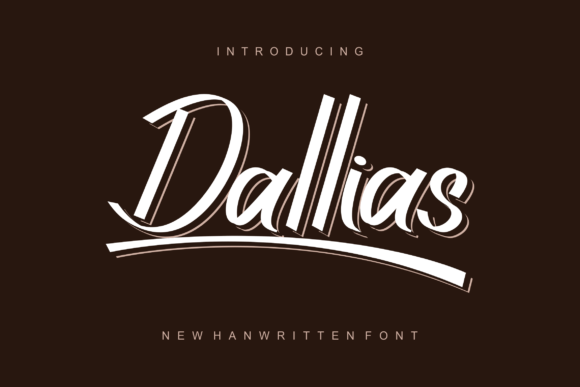
Step into the world of Dallias Font, a script font family meticulously designed by cozzdesign0 to redefine sophistication and style. Dallias' magical essence transforms ordinary words into remarkable expressions, leaving a lasting impression on the hearts of your audience.
With its natural and elegant flair, Dallias is not just a font; it's an artistic masterpiece that elevates your designs to new heights. Crafted with meticulous precision, every curve, stroke, and flourish of Dallias exudes a sense of authenticity and grace, capturing the essence of handwritten beauty.
Dallias is more than just a font; it's an experience. Its captivating charm adds a touch of elegance to business letters, making them stand out from the ordinary. Imagine your words dancing across the page, each letter gracefully flowing into the next, creating a visual symphony that commands attention.
Whether you're a business professional seeking to leave a lasting impression or an artist looking to infuse your creations with a touch of elegance, Dallias is the perfect choice. Its versatile nature lends itself seamlessly to various projects, from formal documents to whimsical invitations, adding a touch of sophistication wherever it goes.
Dallias is not just a collection of letters; it's a gateway to a world of creativity and expression. Its delicate strokes and sweeping curves invite you to unleash your imagination, turning ordinary words into extraordinary masterpieces. With Dallias by your side, your designs will captivate, inspire, and leave an indelible mark on the world.
Embrace the allure of Dallias Font today and embark on a journey of creativity and elegance. Let your words take flight, adorned with the enchanting beauty of Dallias, and witness the transformation as your designs blossom into works of art.